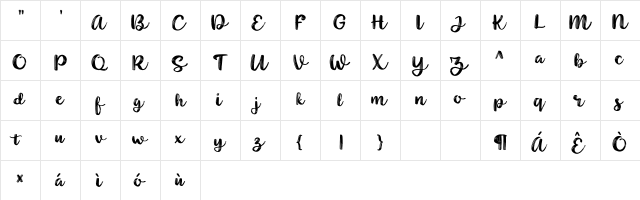
Noyram Demo Regular
| Foundry | patria Ari Studio |
| Designer | Patria Ari Wijonarko |
Design Context for Noyram Demo Typeface
Noyram Demo is a composed and adaptable typeface that performs quietly and consistently across a wide range of design contexts.